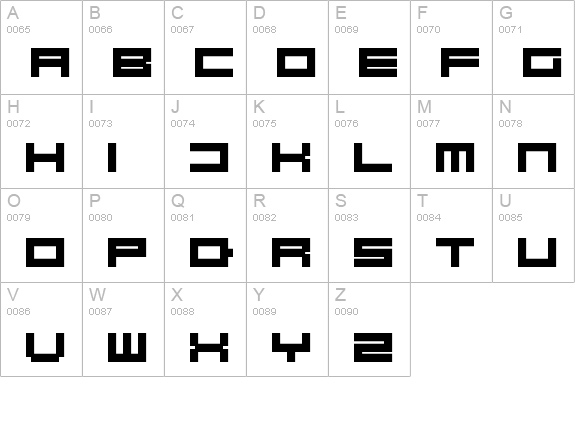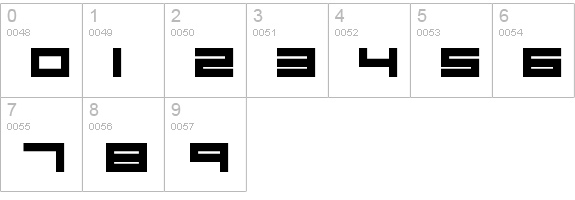
Robots Blocks Font Details
Robots Blocks is a free for personal use font in the Modern > Techno category, designed by Darrell Flood. It has been downloaded 19 times and is available for Windows, Mac and Linux.
Introducing Robots Blocks font - a modern and futuristic typeface that perfectly captures the essence of technology and innovation. With its sleek and geometric design, Robots Blocks font is ideal for projects that require a cutting-edge look and feel. This versatile font can be used for a variety of design purposes, from branding to web design to social media graphics.